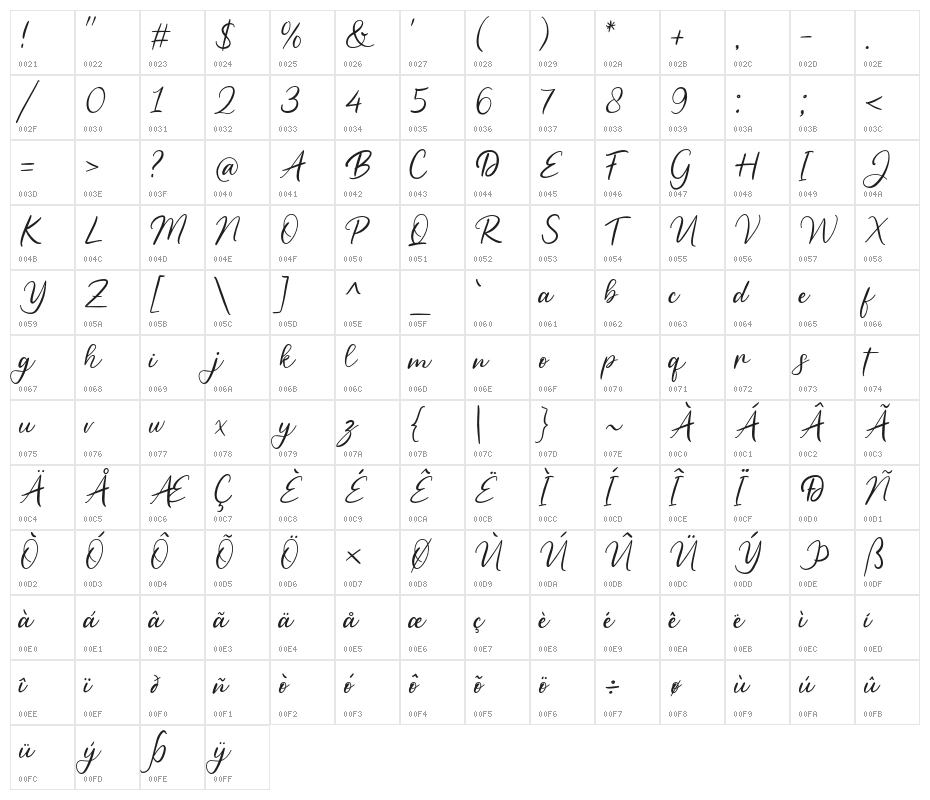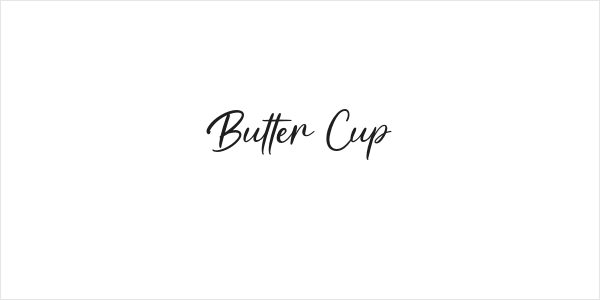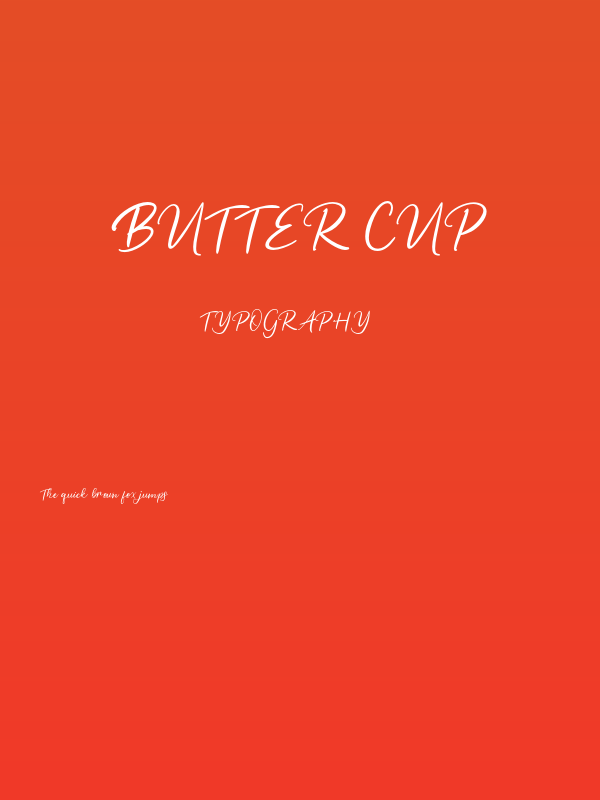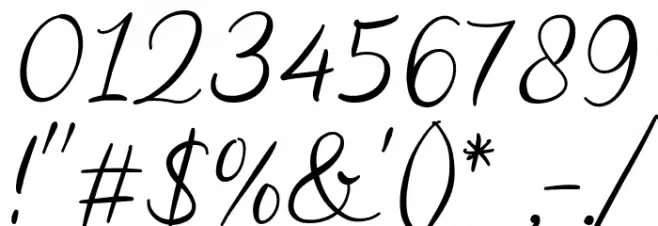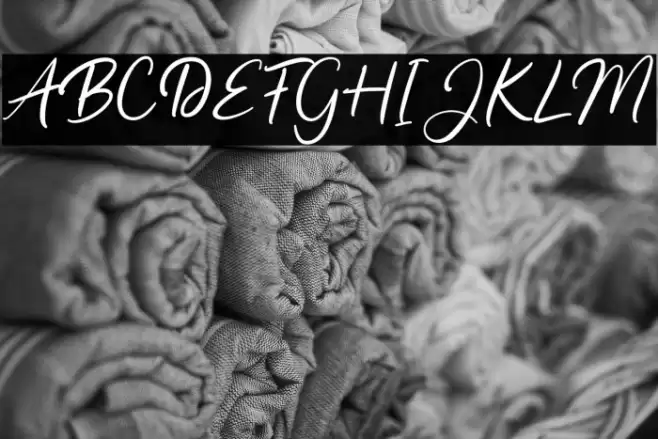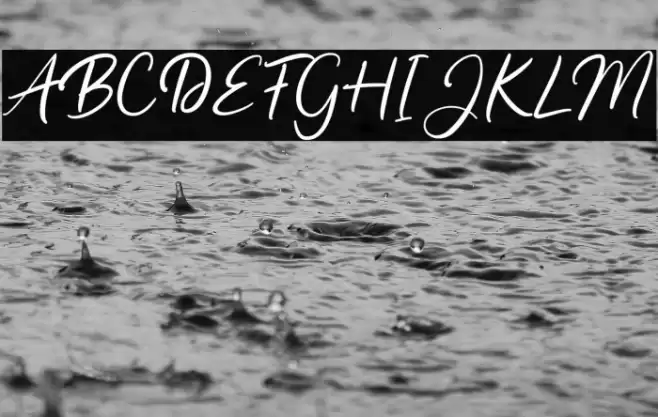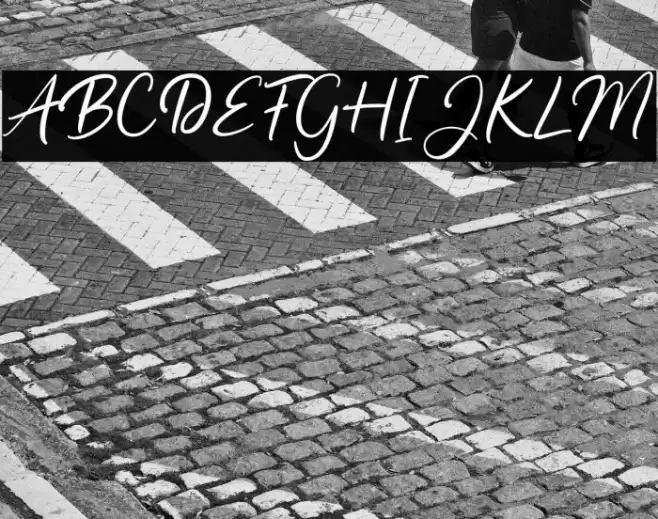
Butter Cup Font
Butter Cup Description
This elegant script font features a flowing, cursive style that mimics natural handwriting. The letters are interconnected, creating a seamless and fluid appearance. The uppercase letters are slightly more ornate, with graceful loops and swirls, while the lowercase letters maintain a consistent, smooth flow. The numerals are designed to match the script style, with gentle curves and a harmonious look. Special characters are integrated seamlessly, maintaining the overall aesthetic. This font exudes a sense of sophistication and charm, making it ideal for projects that require a personal touch.
| Overall Style | Elegant |
| Use Case | Logos, Invitations, Personal Branding |
| Proposed Projects | Ideal for wedding invitations, greeting cards, personal branding, and elegant packaging. |